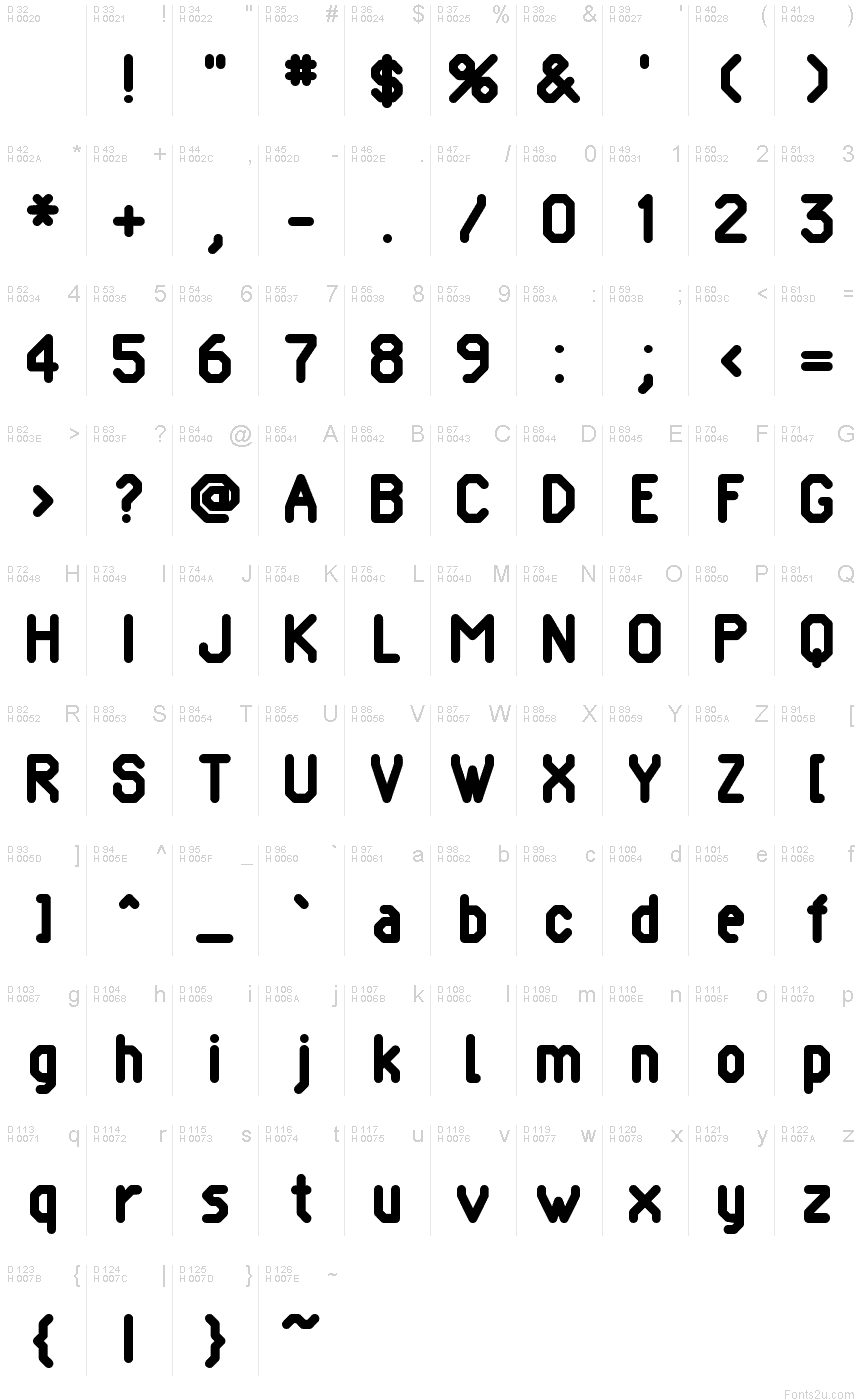
Pomcute
Pomcute by Yoshitaka Yamada is a free techno display font with a chunky, softened geometry that feels playful rather than cold. The letters mix blocky weight with rounded corners and clipped angles, giving the alphabet a toy-robot rhythm and a compact, slightly bubbly pulse.
It fits posters, game branding, app splash screens, kids' packaging, and short logo work where that friendly digital mood can carry the design. As a free font, Pomcute also works well for title cards and brief cover lines, because its thick shapes and beveled cuts keep even a few letters feeling graphic and self-contained.